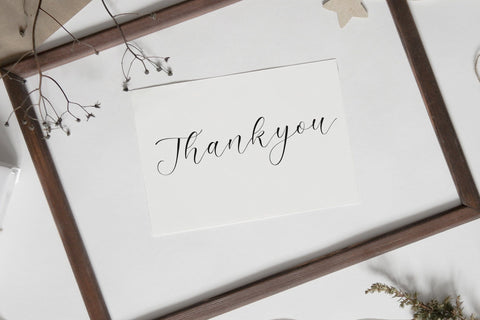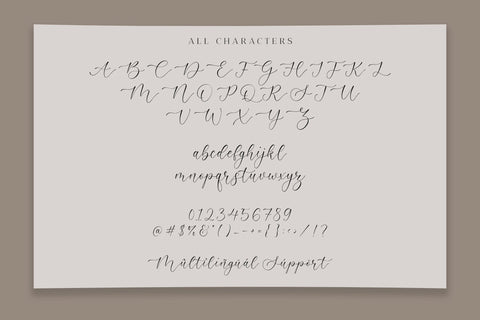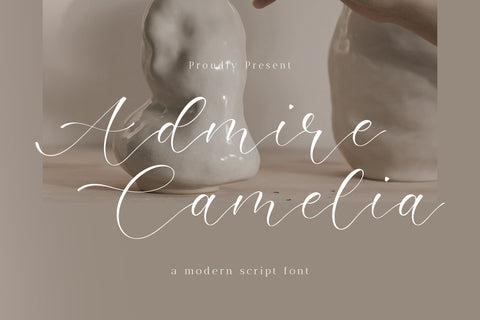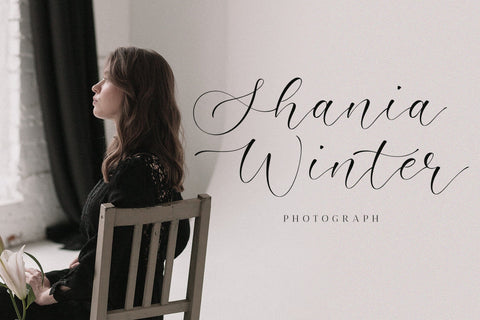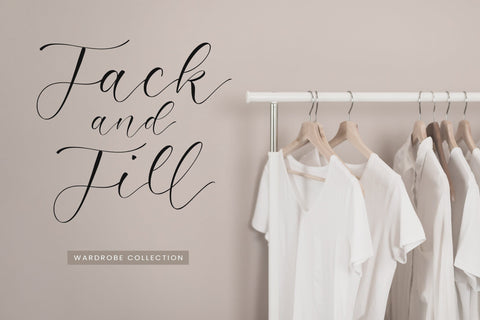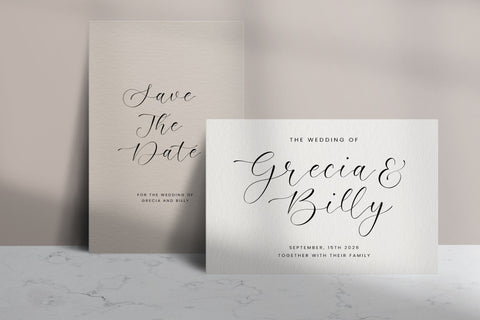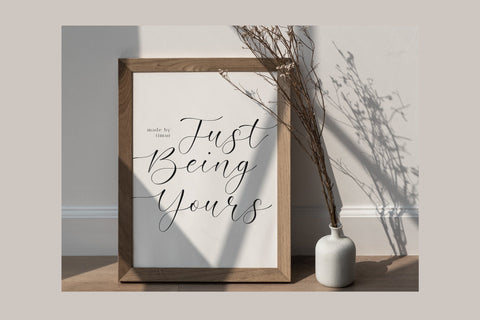
Admire Camelia - Script font
Proudly Present, Admire Camelia - Script font
Admire Camelia is a Handwritten script font, which was created with great care and specially created for you .
Admire Camelia is best for:
- logos, branding, & Signatures.
- Flyers, Album cover, Magazine, & Advertisements.
- Website design , design blogs, & fashion.
- Quote graphics for social media.